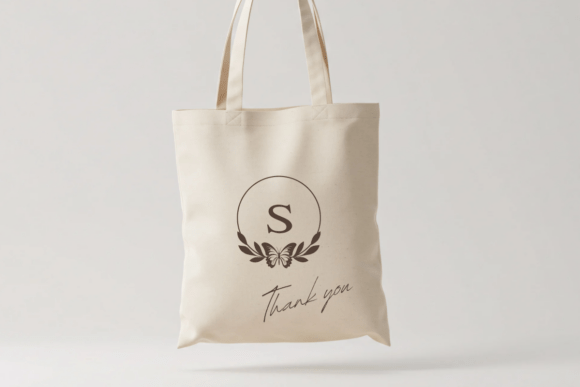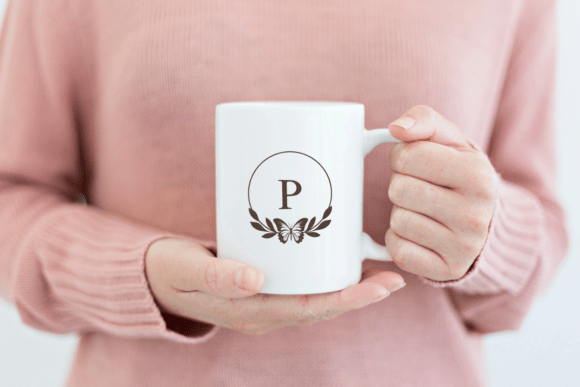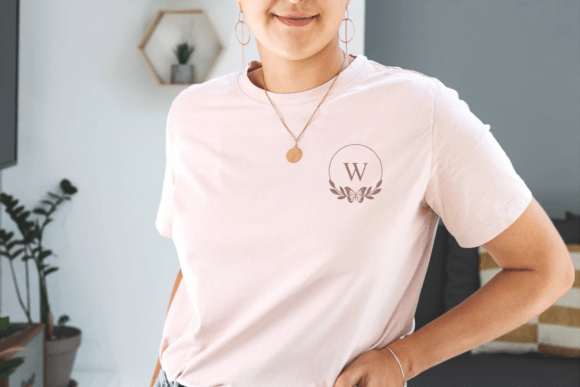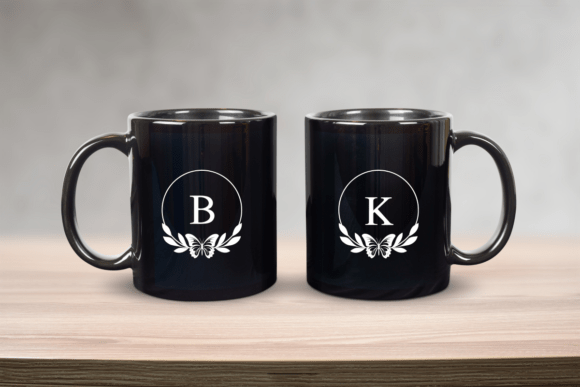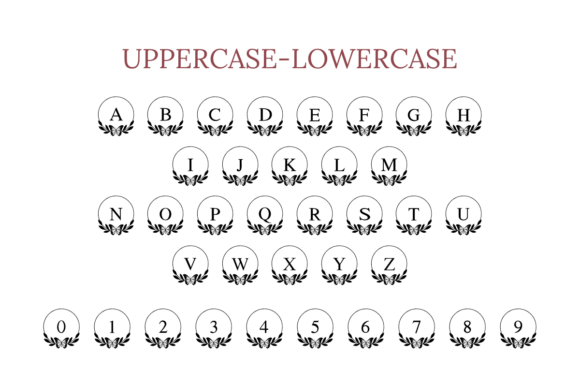
Introducing the Elegant Butterleaf Monogram Font
In the world of typography, a well-crafted font can elevate a brand’s identity and leave a lasting impression. For designers and crafters seeking a touch of sophistication and femininity, the Butterleaf Monogram Font is an exquisite choice. This beautiful decorative font features refined serif initials enclosed in elegant frames, adorned with delicate butterfly and leaf accents.
A Font that Embodies Soft, Feminine Charm
The Butterleaf Monogram Font is a masterful blend of elegance and whimsy. Its design is characterized by intricate details, with serif initials nestled within ornate frames. The addition of butterflies and leaves adds a touch of playfulness, creating a sense of movement and lightness. This font is perfect for beauty branding, stationery, logos, or invitations, where a soft, feminine charm is desired.
Key Features of the Butterleaf Monogram Font
- Refined Serif Initials: The font boasts beautifully crafted serif initials, perfect for creating a sense of luxury and sophistication.
- Elegant Frames: Each initial is enclosed in an ornate frame, adding an extra layer of elegance and refinement.
- Delicate Butterfly and Leaf Accents: The subtle inclusion of butterflies and leaves brings a touch of whimsy and playfulness to the font.
- Feminine Charm: The overall design of the font exudes a soft, feminine charm, making it ideal for beauty-related branding and creative projects.
Use Cases for the Butterleaf Monogram Font
The versatility of the Butterleaf Monogram Font makes it suitable for a wide range of applications. Here are a few ideas to get you started:
- Beauty Branding: Create a luxurious and sophisticated brand identity for your beauty business with this stunning font.
- Stationery: Add a touch of elegance to your stationery, including letterheads, envelopes, and greeting cards.
- Logos: Use the Butterleaf Monogram Font to create a beautiful and memorable logo for your business or brand.
- Invitations: Make your invitations stand out with this gorgeous font, perfect for weddings, baby showers, and other special occasions.
Why Choose the Butterleaf Monogram Font?
With so many fonts available, why choose the Butterleaf Monogram Font? Here are a few reasons why this font stands out:
- Unique Design: The combination of refined serif initials, elegant frames, and delicate accents makes this font truly unique.
- High-Quality Craftsmanship: The font is crafted with attention to detail, ensuring a high level of quality and sophistication.
- Versatility: The Butterleaf Monogram Font can be used for a wide range of applications, from beauty branding to stationery and logos.
The Butterleaf Monogram Font is a stunning addition to any designer’s or crafter’s toolkit. Its elegant design, refined serif initials, and delicate accents make it perfect for creating beautiful and sophisticated branding, stationery, logos, and invitations. Whether you’re looking to add a touch of femininity or create a luxurious brand identity, this font is sure to impress.